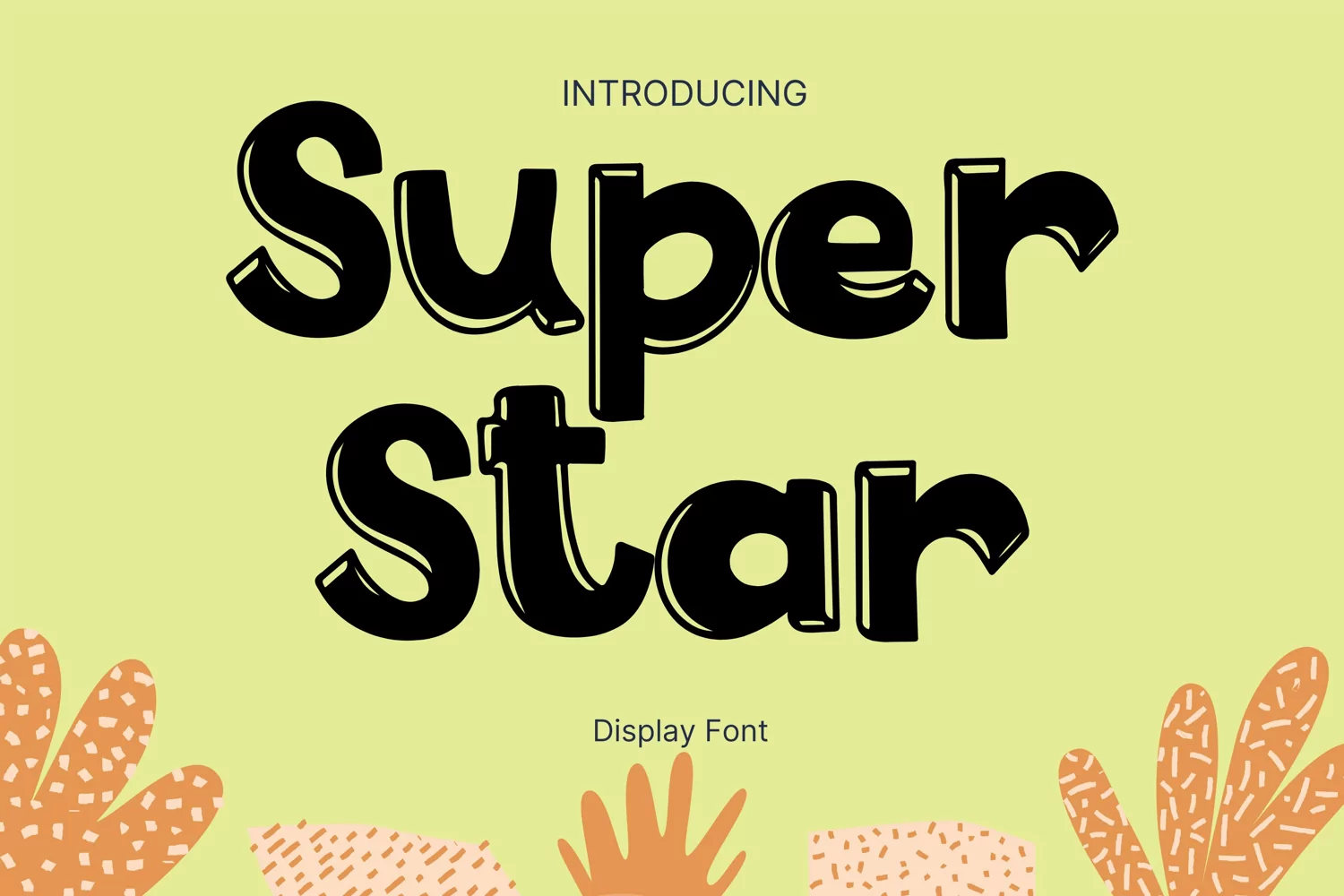
Created By AchiArt
Super Star Style
SuperStar
Super Star Style is a whimsical and clean handwritten font. It can easily be matched to an incredibly large set of projects, so add it to your creative ideas and notice how it makes them stand out!